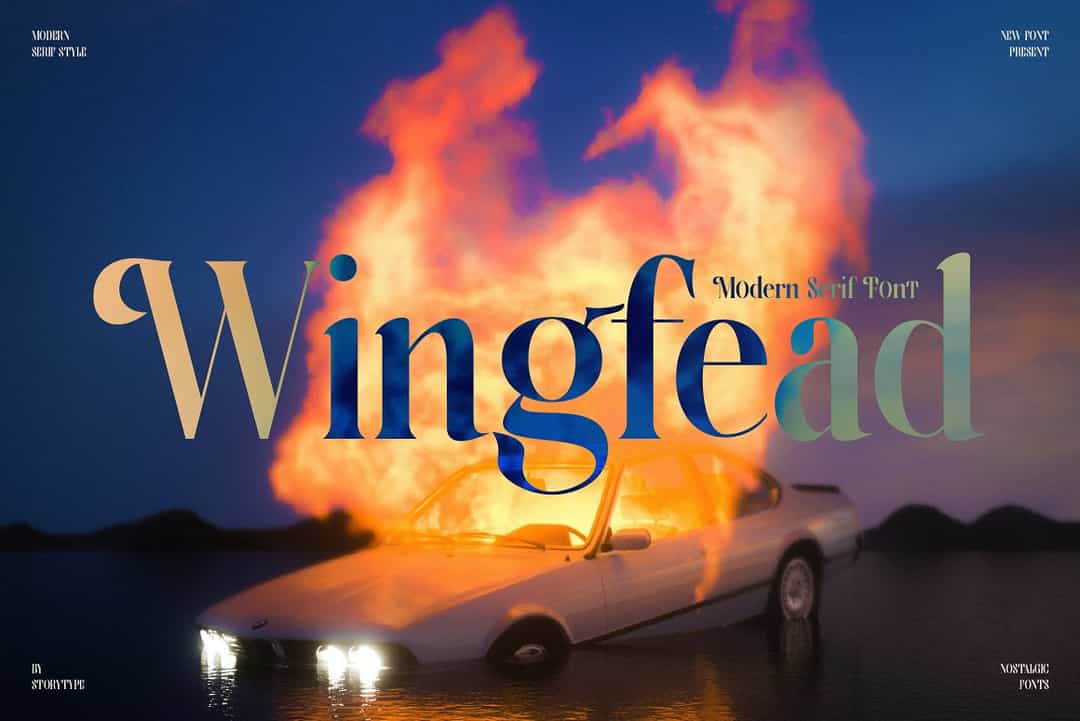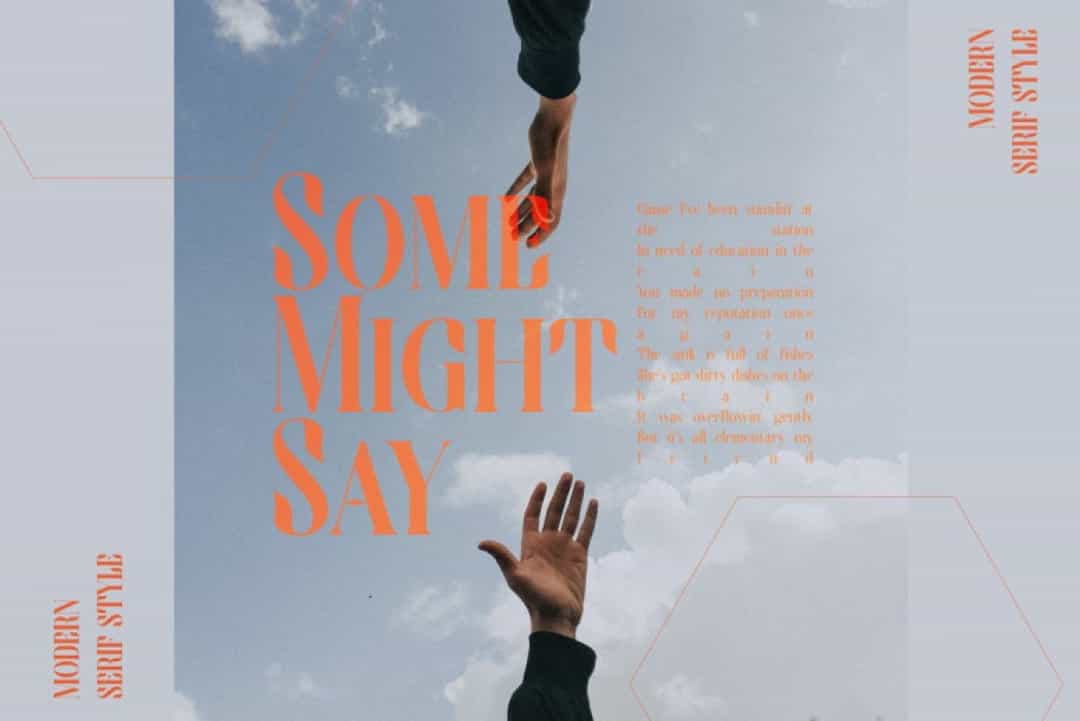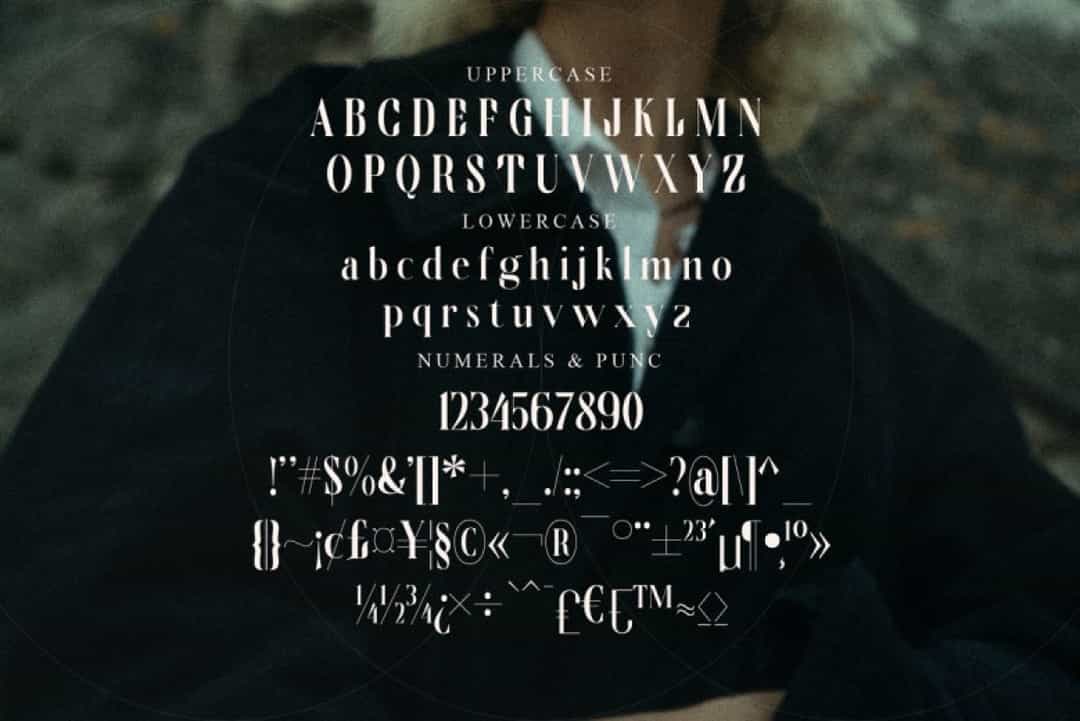
Wingfead Typeface by Storytype is an exciting modern serif and classic font with its distinct style and contemporary appearance, suitable for creating luxurious logos, movie or book name designs, fashion magazine covers, clothing letters or quotes and many other applications.